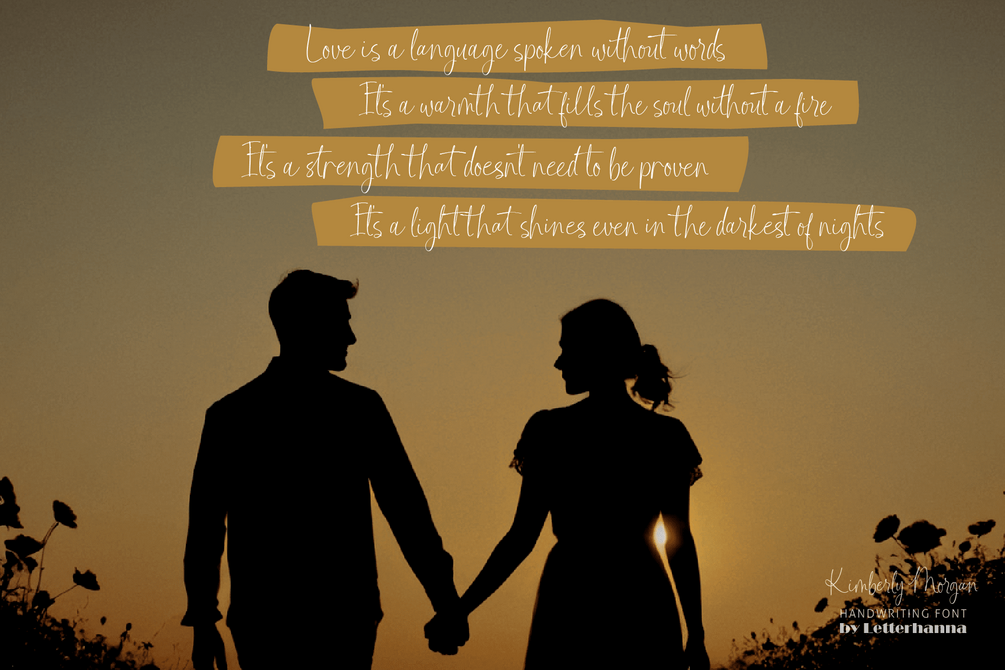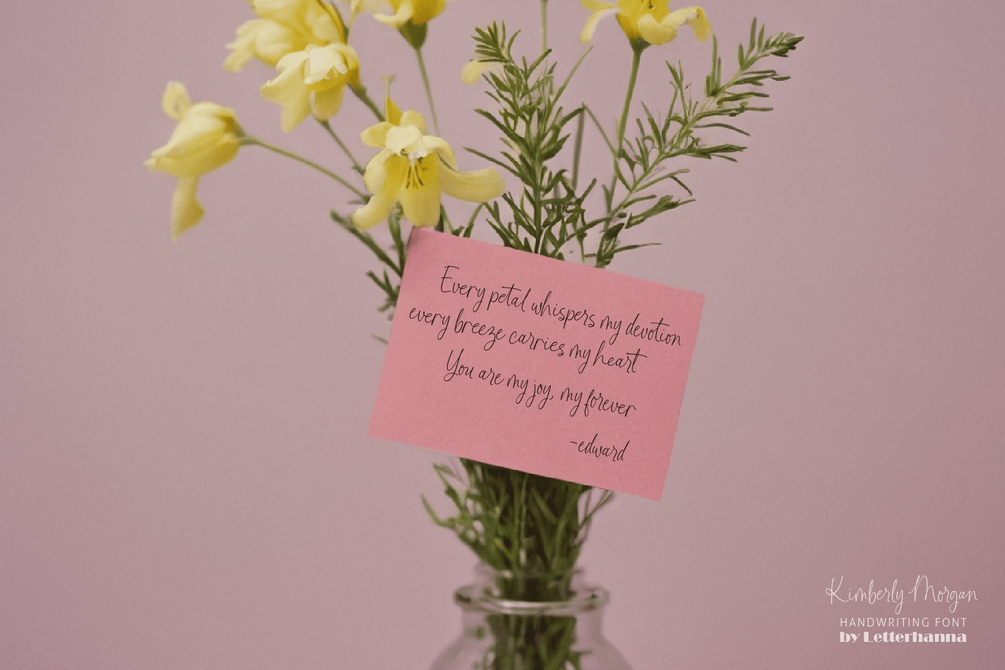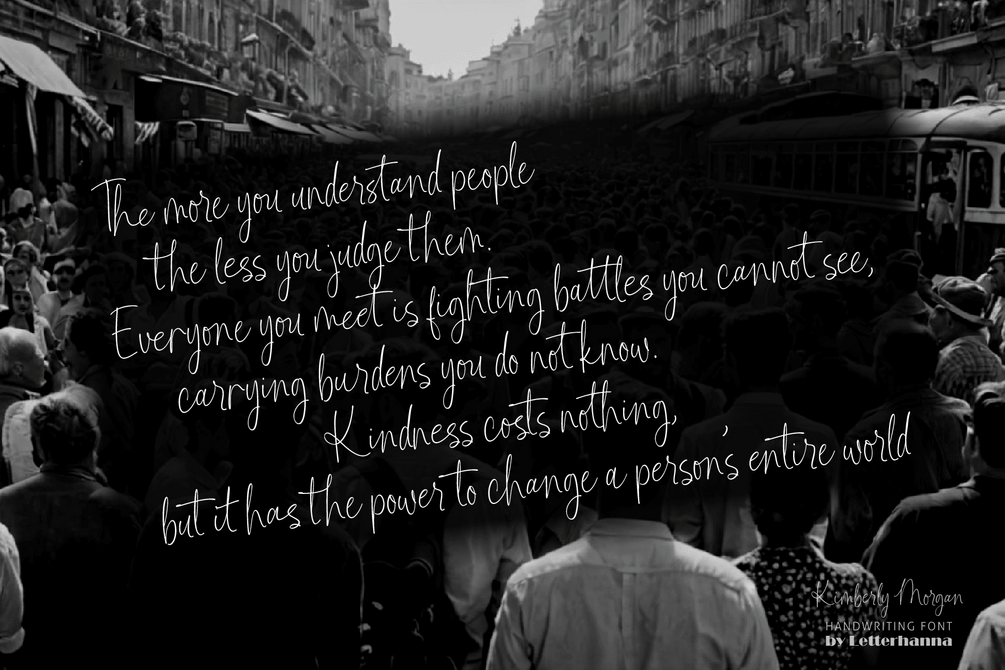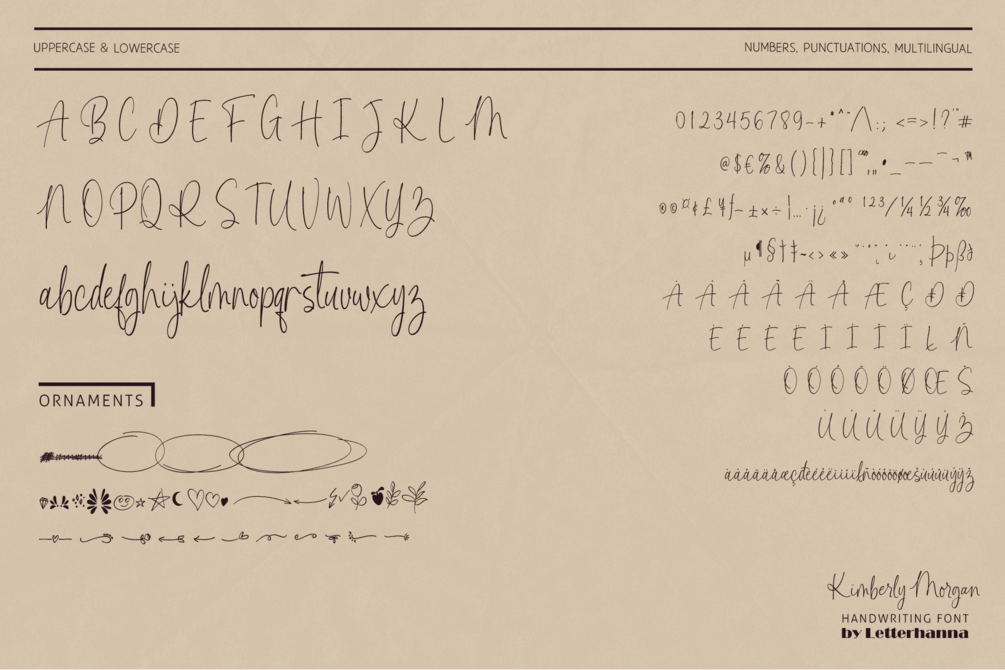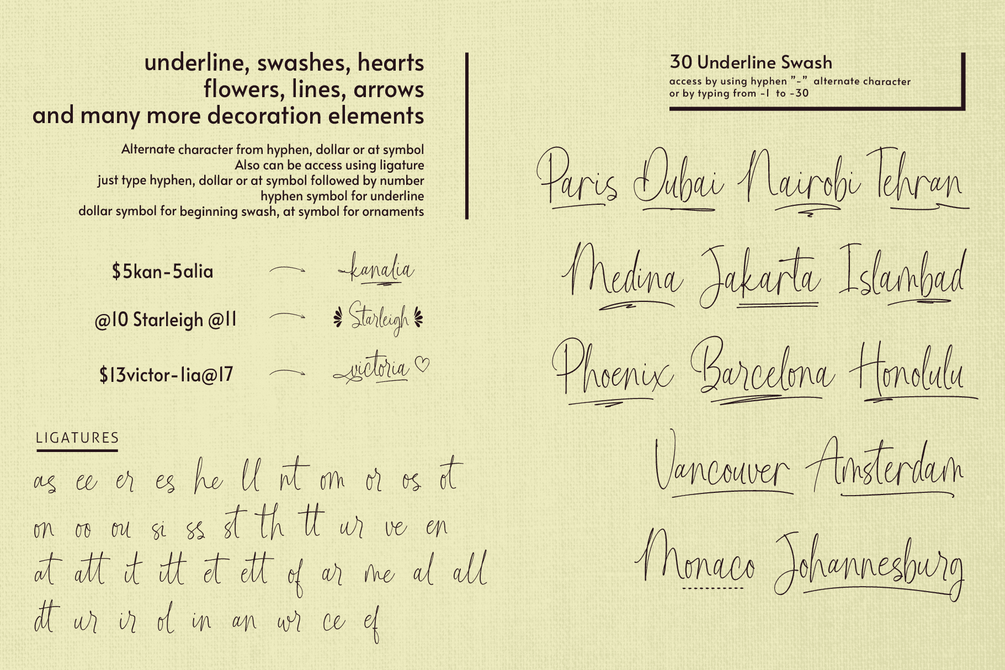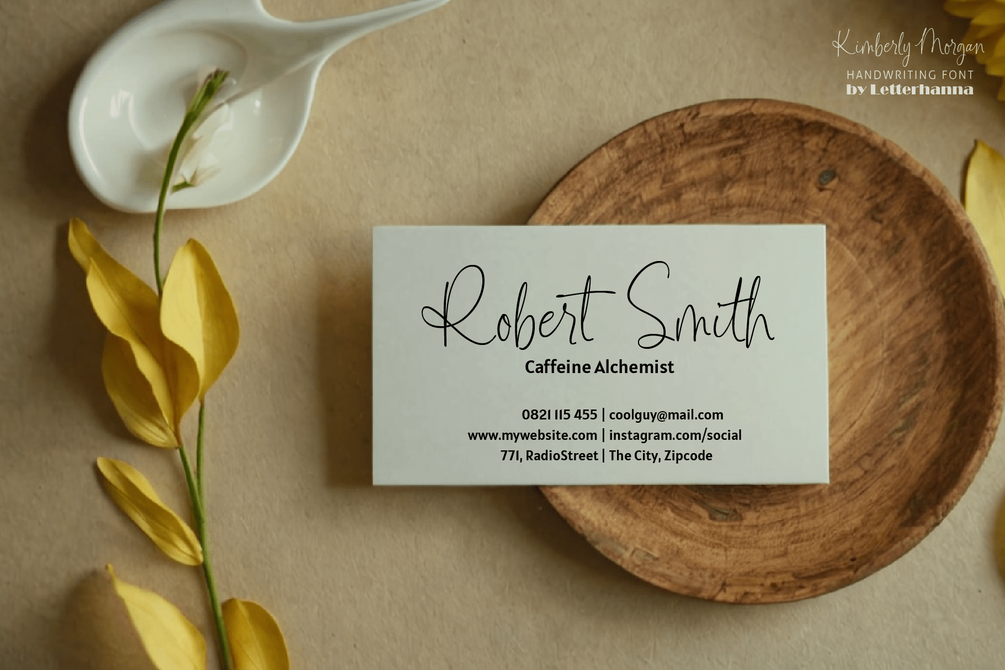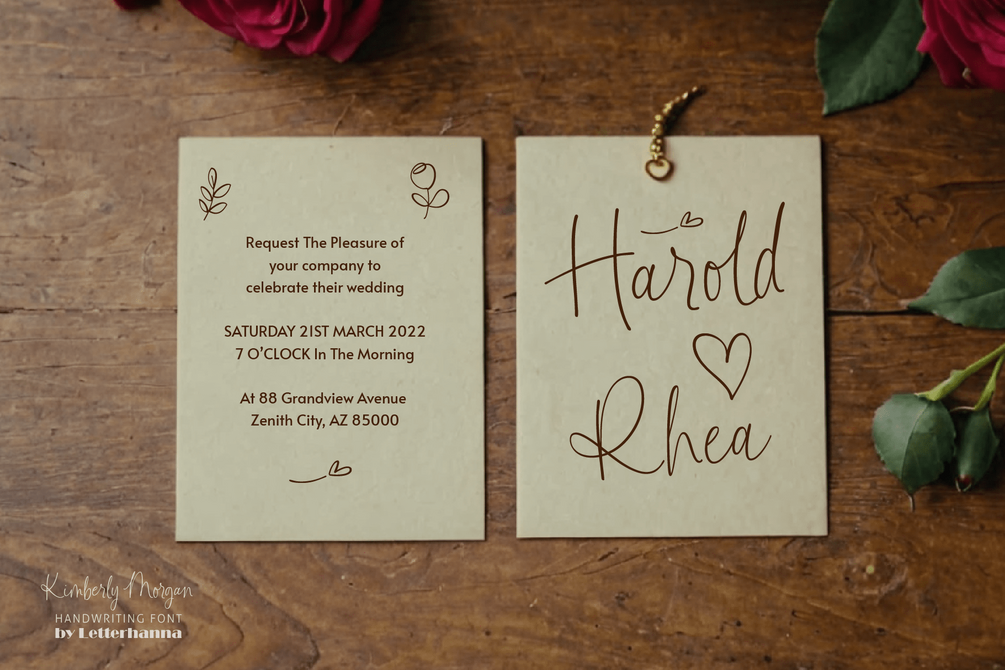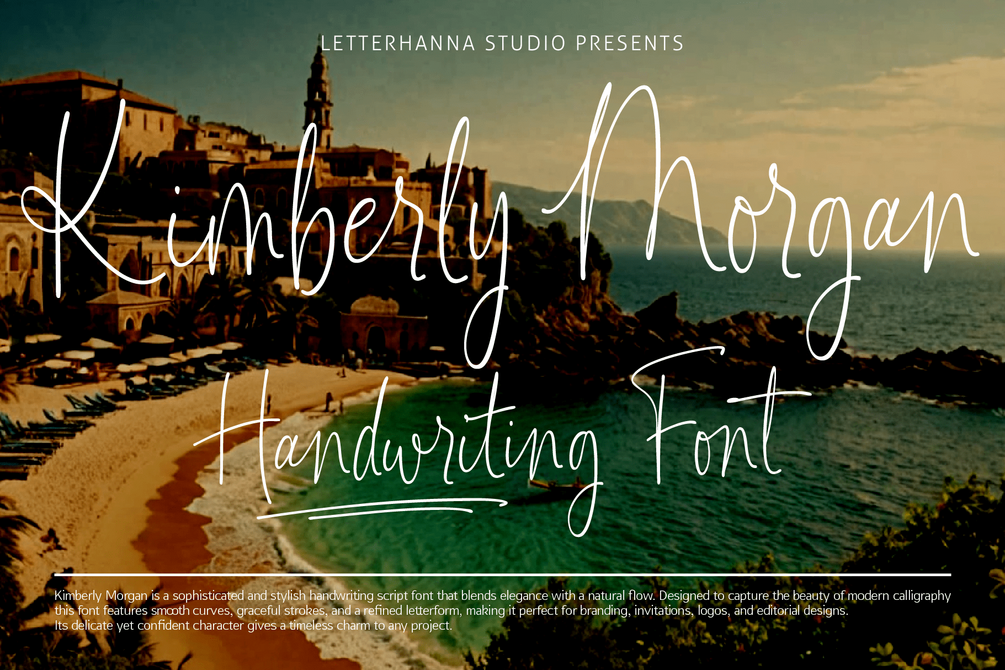
Kimberly Morgan Handwriting Free
Kimberly Morgan is a refined and elegant stylish handwriting script font that exudes sophistication and charm. With its smooth strokes and natural flow, this font is perfect for branding, invitations, logos, and more.
Designed for those who appreciate effortless beauty, Kimberly Morgan adds a custom and stylish touch to any project. Elevate your designs with its graceful and timeless appeal!